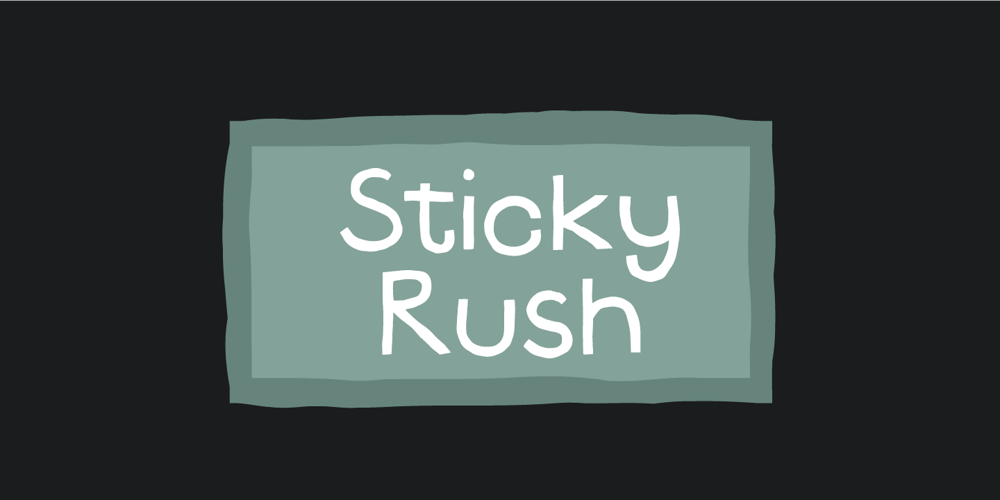
Sticky Rush
Sticky Rush font
Sticky Rush Font Family was designed by Jakob Fischer and published by Bogstav. Sticky Rush contains 4 styles and family package options. This is my and it’s handmade super legible sans font. Very suitable for anything that needs a clearly handmade look, but not overdoing it. I’ve added several different versions, and they all fit on top of each other – or you can use them just fine as individual fonts.